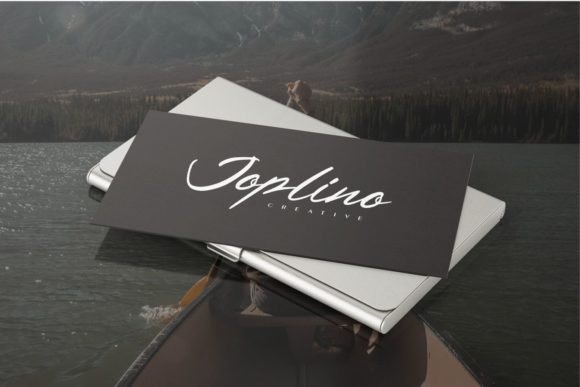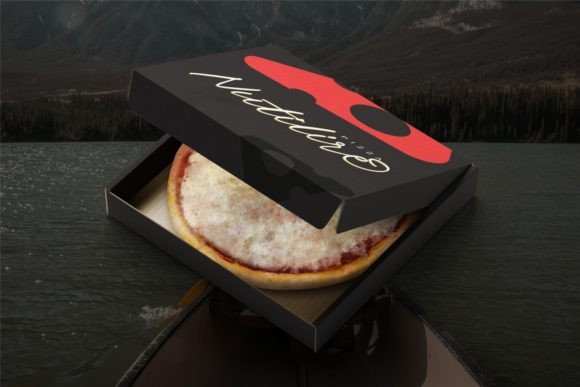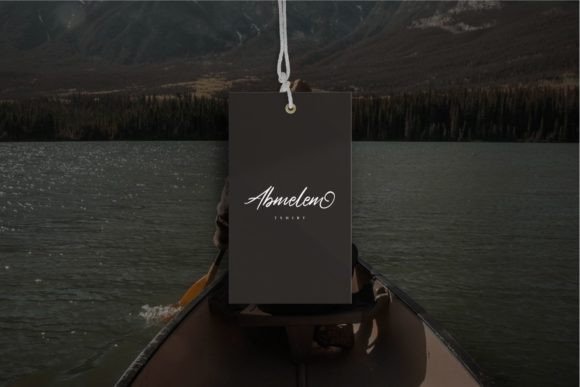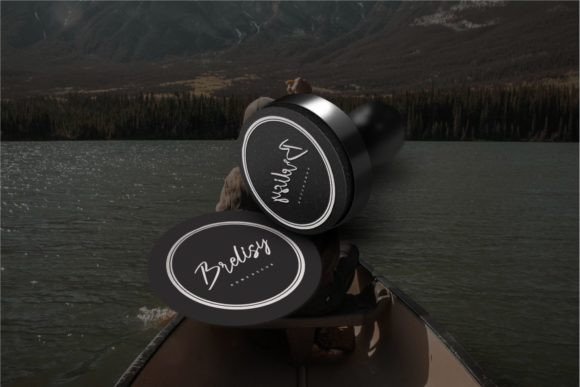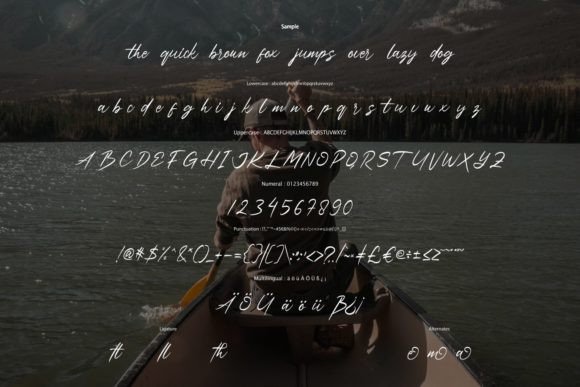
Introduction to Satlem Font
Have you ever been stuck in front of your computer screen, staring at a blank document, desperately trying to come up with the perfect design for your creative project? We’ve all been there. But what if you had the perfect tool to give your design that extra oomph?
Enter the Satlem Font, a modern and cool handwritten script font that’s about to revolutionize the way you design. With its incredibly distinct and timeless style, this font is sure to make your designs stand out from the crowd. Whether you’re working on a project that requires a free download or a high-quality design resource, the Satlem Font is the perfect choice.
Key Features of Satlem Font
- High-quality font with a unique, hand-drawn design perfect for creative projects.
- Perfect for use in logos, branding, and other design elements where a unique, creative touch is desired.
Honest Review: Satlem Font
As a designer, I’m always on the lookout for high-quality design resources that can elevate my creative projects. Recently, I came across the Satlem Font, and I’m excited to share my honest review with you.
- ✨ Unique and modern design aesthetic that sets it apart from other fonts.
- ✨ High-quality font files that are perfect for both digital and print projects.
- ⚠️ Limited language support, which may be a concern for designers who work with multiple languages.
- ⚠️ No transparent background option, which can make it difficult to use in certain design scenarios.
Overall, I’m impressed with the Satlem Font. Its unique design and high-quality files make it a valuable addition to any designer’s toolkit. While it may have some limitations, it’s still a great resource for designers who are looking for a modern and stylish font. Whether you’re working on a creative project or just need a reliable font for your design work, the Satlem Font is definitely worth checking out.
Tips for Getting the Most Out of the Satlem Font
To get the most out of the Satlem Font, experiment with different font sizes, colors, and styles. Use the transparent background feature to create visually appealing designs. Combine the Satlem Font with other design elements to create unique and eye-catching graphics.
Common Use Cases for the Satlem Font
The Satlem Font is suitable for a variety of creative projects, including logos, business cards, brochures, and social media graphics. Its high-quality design and transparent background feature make it an ideal choice for professional and personal projects alike.
Compared to Satlem Font, Great Vibes Font has a more playful and cursive feel, making it suitable for designs that require a more relaxed tone. Use Great Vibes Font when you want to add a touch of elegance and sophistication to your design.